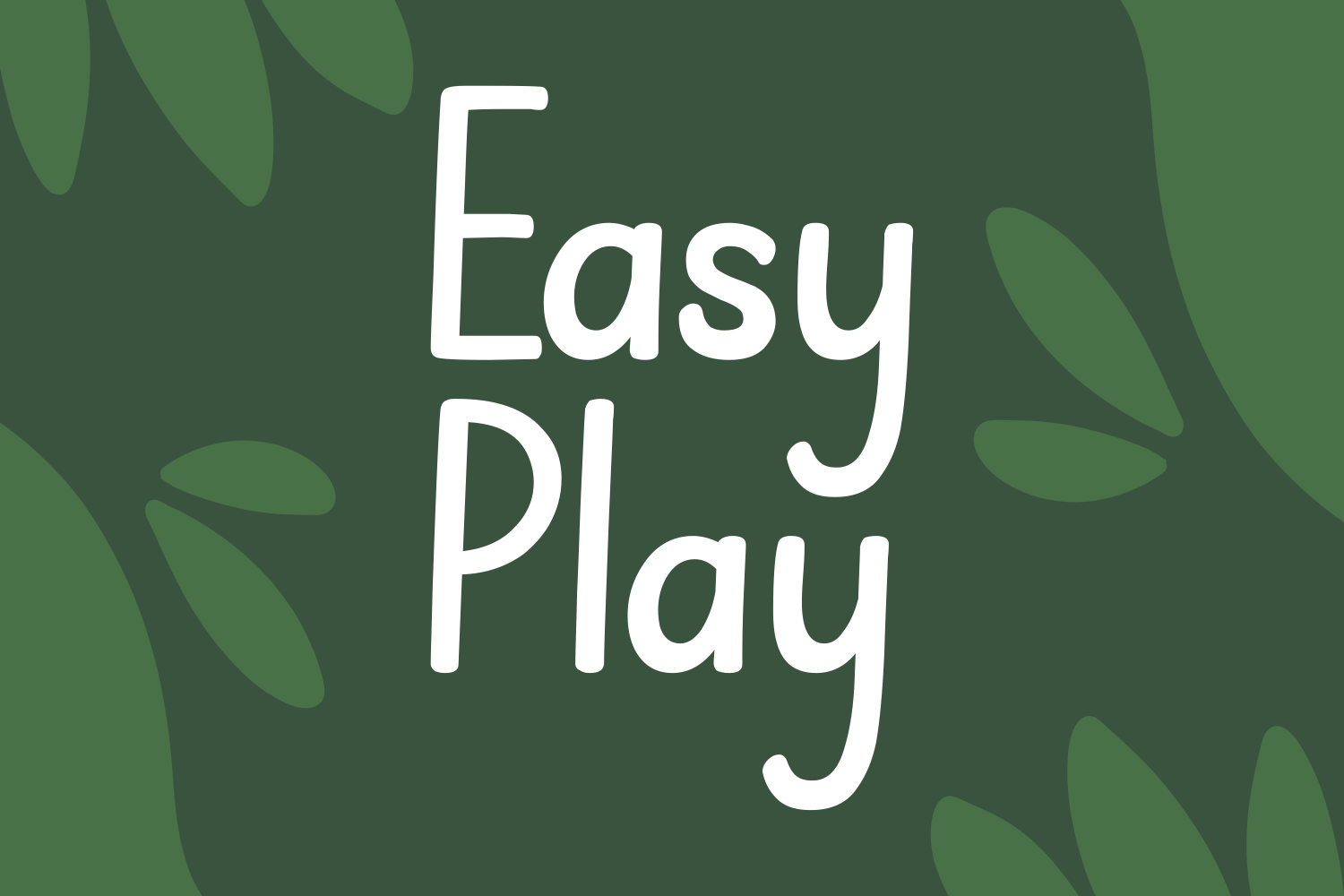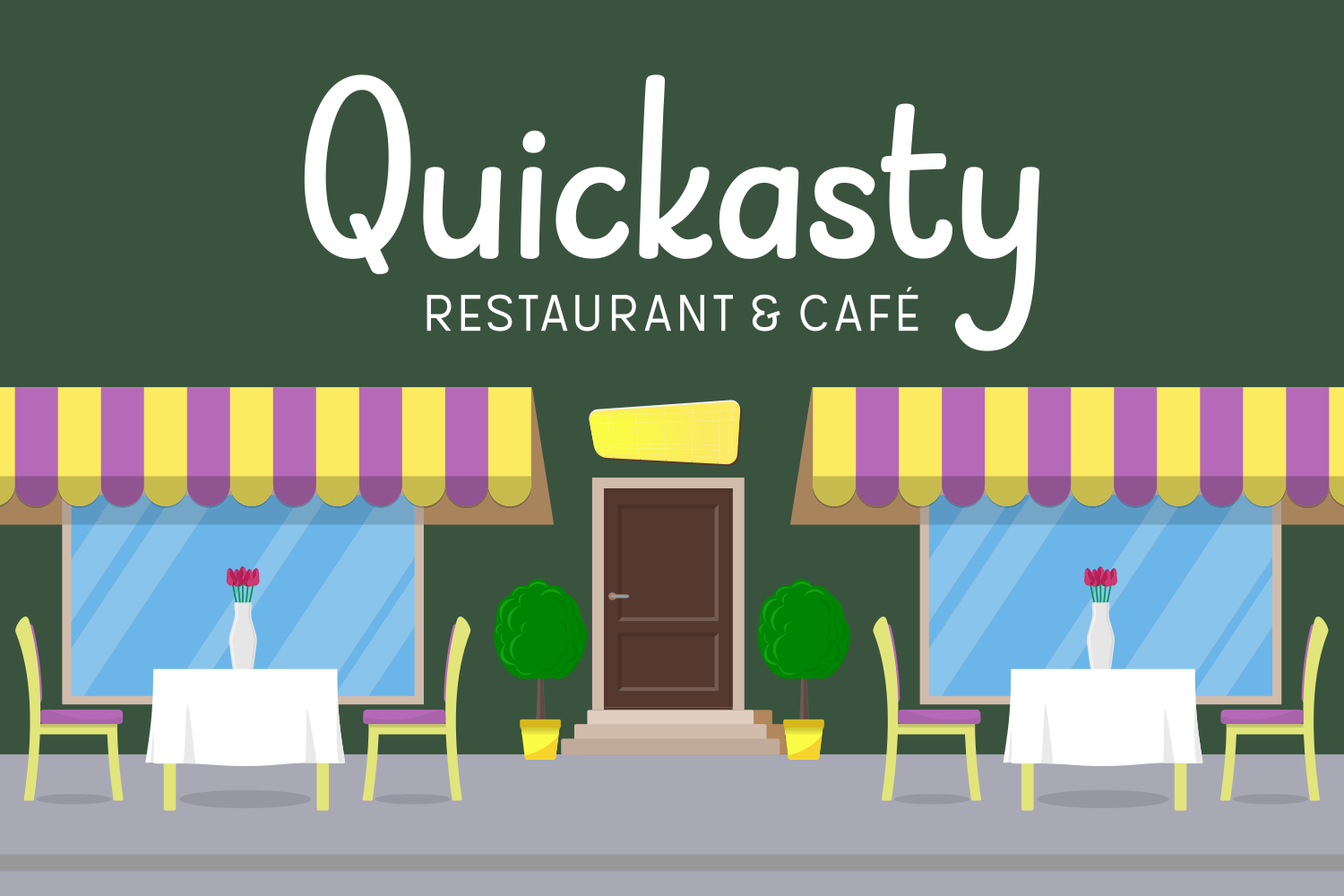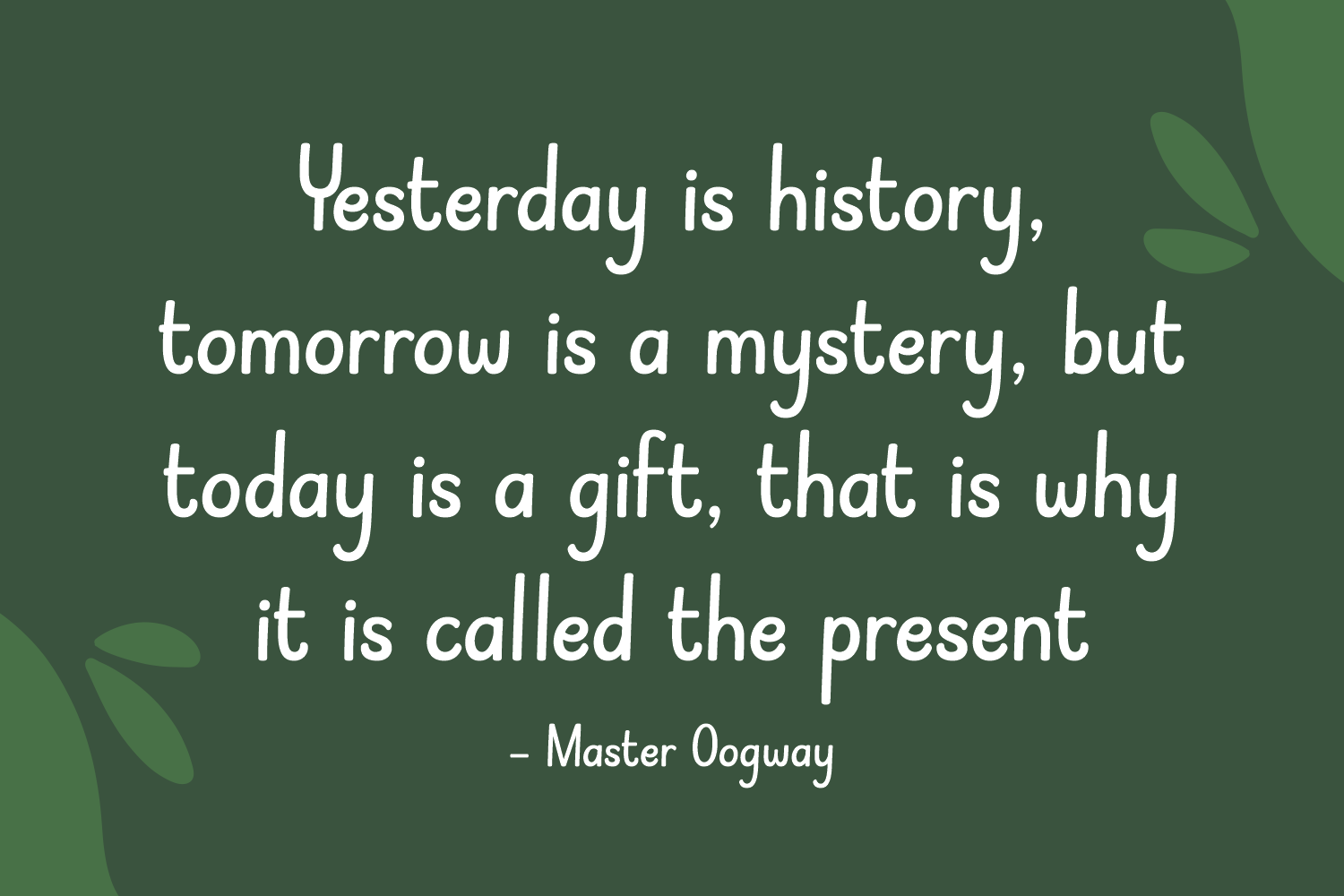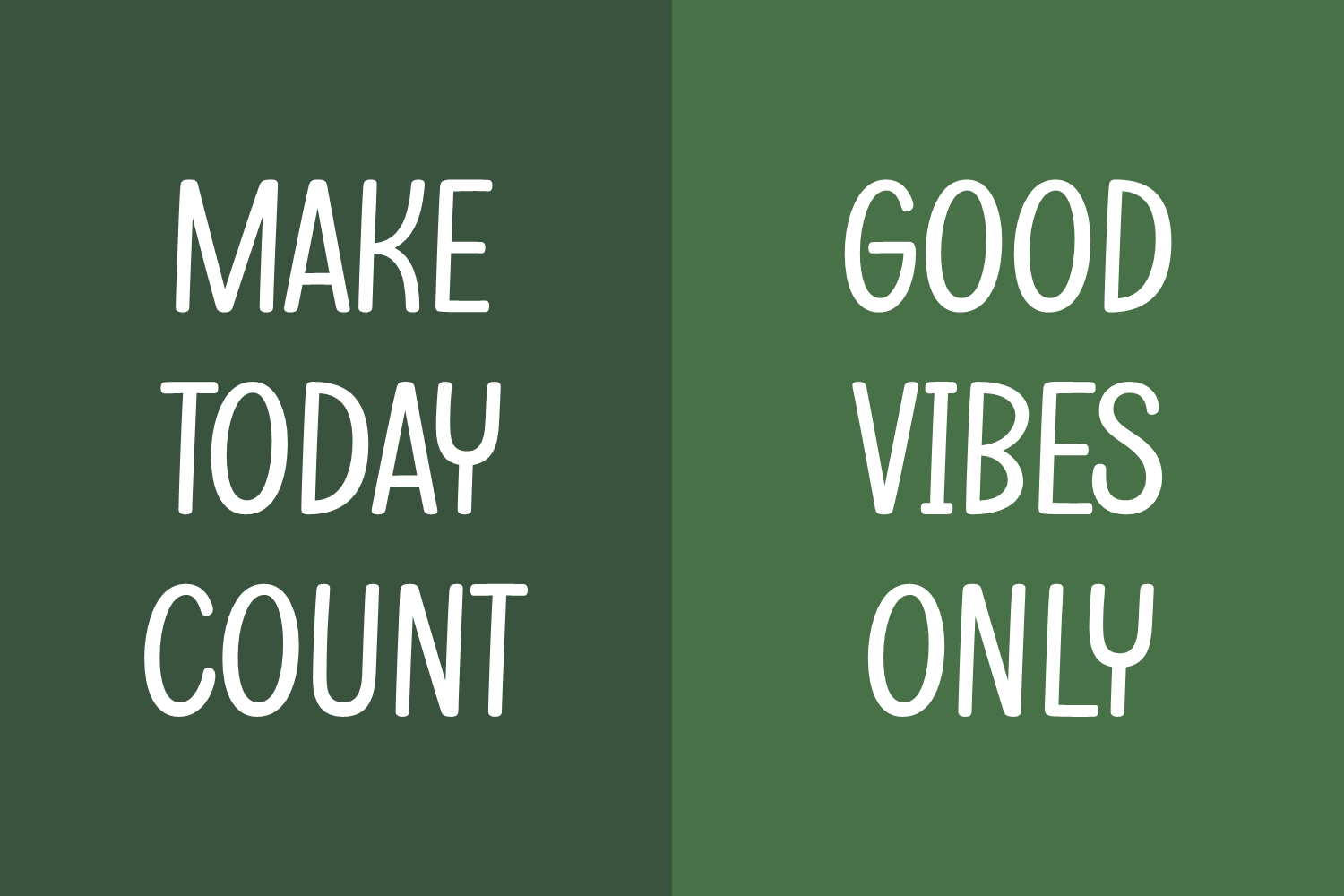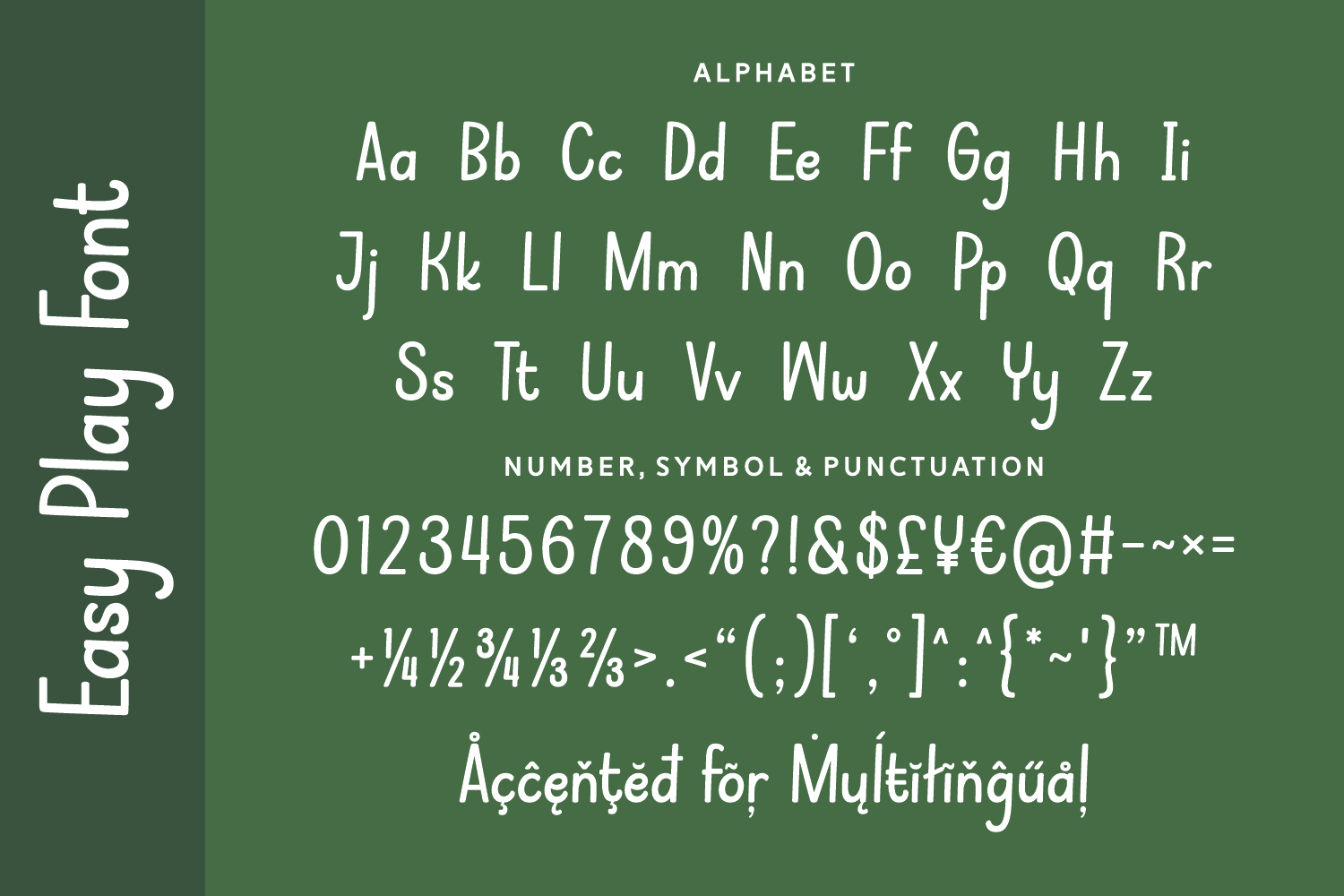
Easy Play is a playful sans serif typeface featuring rounded strokes and a friendly hand-drawn feel. Perfect for children’s books, casual branding, and cheerful packaging, it brings warmth and approachability to any project.